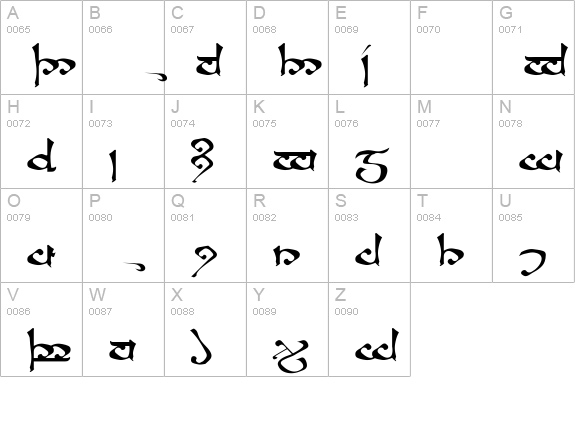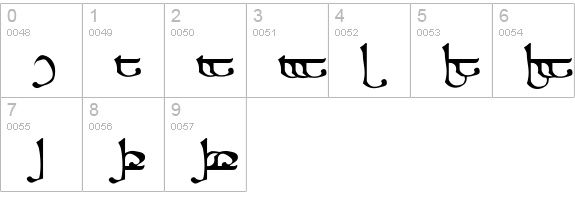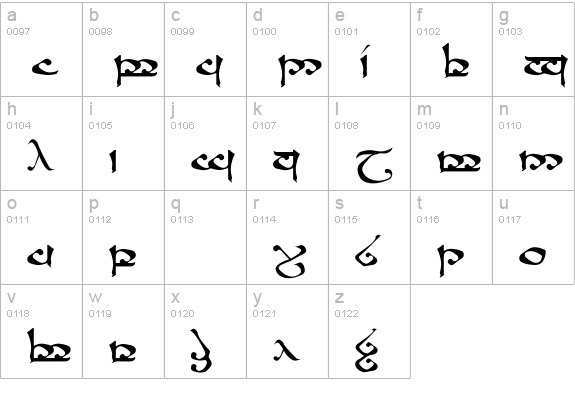
Introducing RSMoroma font - a stylish and versatile typeface that is perfect for a wide range of design projects. With its elegant curves and modern aesthetic, RSMoroma adds a touch of sophistication to any design. Whether you're working on branding, packaging, invitations, or any other creative project, this font is sure to make a statement. The best part? RSMoroma is available for free download at FontsMarket.com. That's right, you can easily access this beautiful font without spending a dime. So why wait? Give your designs a fresh and contemporary look with RSMoroma font today!